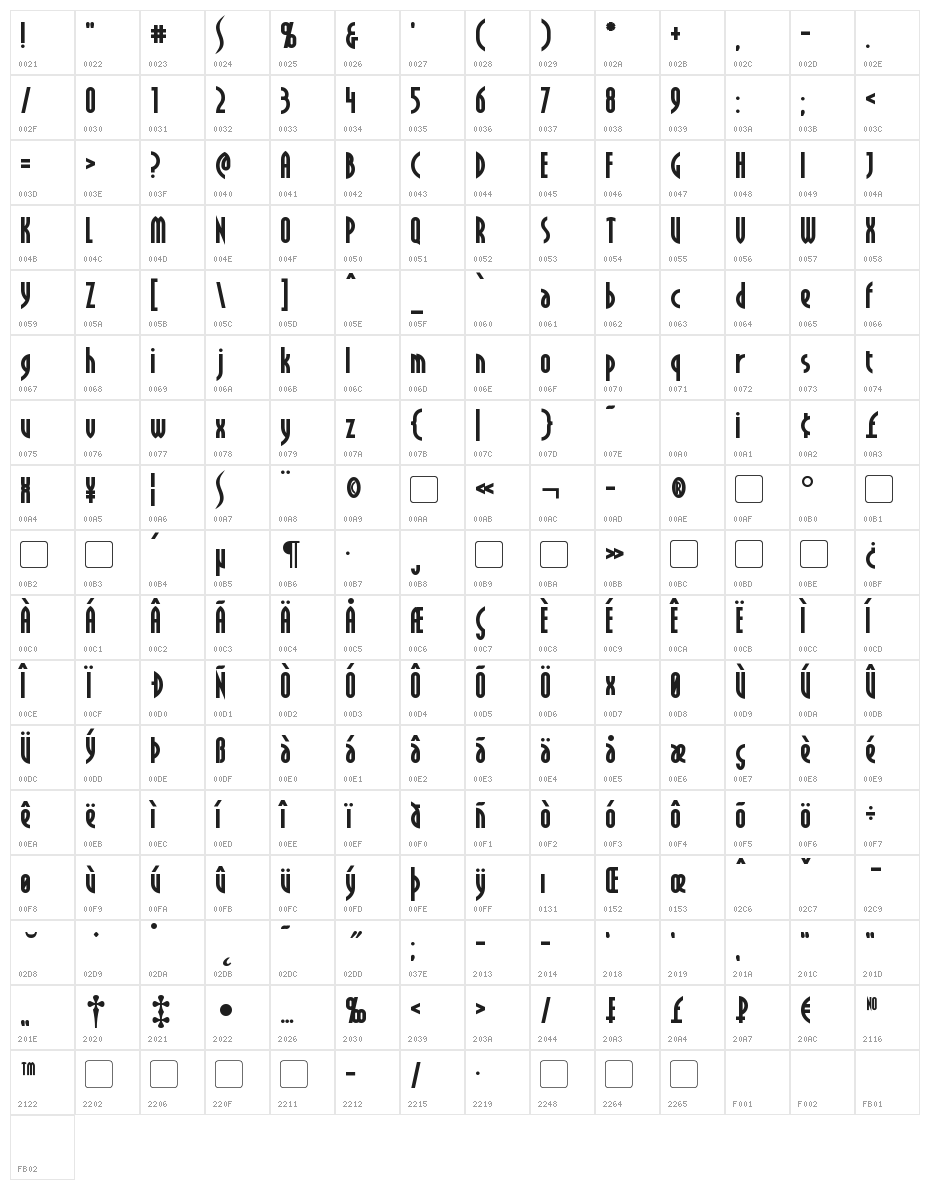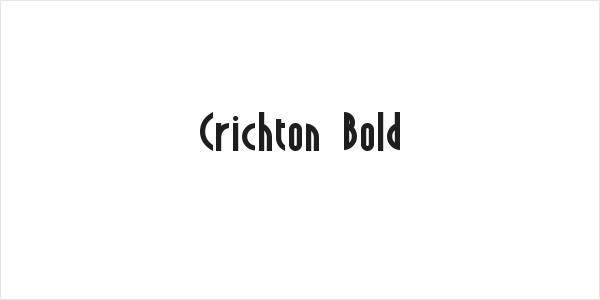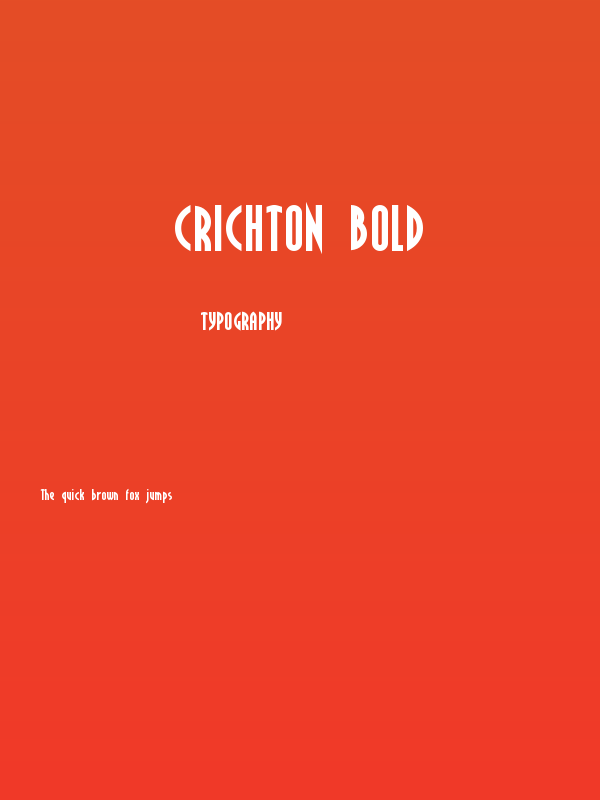
Crichton Bold Font
Crichton Bold Description
This font features a bold and striking design with a strong geometric influence. The characters are tall and narrow, creating a condensed appearance that emphasizes verticality. The uppercase letters have a distinct art deco flair, with sharp angles and clean lines that convey a sense of modernity and sophistication. The lowercase letters maintain the same geometric style, offering a cohesive look across different text cases. Numbers and special characters are designed to match the overall aesthetic, ensuring consistency throughout. This font's unique style makes it ideal for projects that require a bold and impactful visual presence.